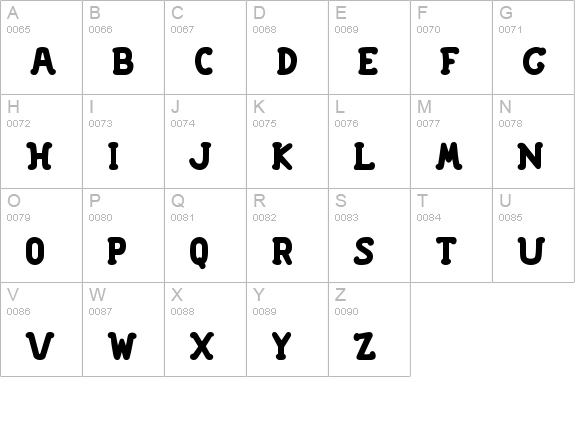
FontSoupCatalan-ExtraBoiled Font Details
FontSoupCatalan-ExtraBoiled is a unique and eye-catching font that combines elegance with a touch of modernity. This font features bold and distinctive letterforms that are sure to make your designs stand out. The extra boiled style adds a sophisticated flair, making it perfect for a wide range of design projects. What's even better is that FontSoupCatalan-ExtraBoiled is completely free to download at FontsMarket.com. This means you can easily access this stylish font and use it in your projects without any cost. Whether you're designing a poster, logo, website, or any other creative project, FontSoupCatalan-ExtraBoiled is a versatile font that will elevate your designs to the next level. Don't miss out on this fantastic opportunity to enhance your designs with FontSoupCatalan-ExtraBoiled. Download it for free today and start creating visually stunning projects that will leave a lasting impression.